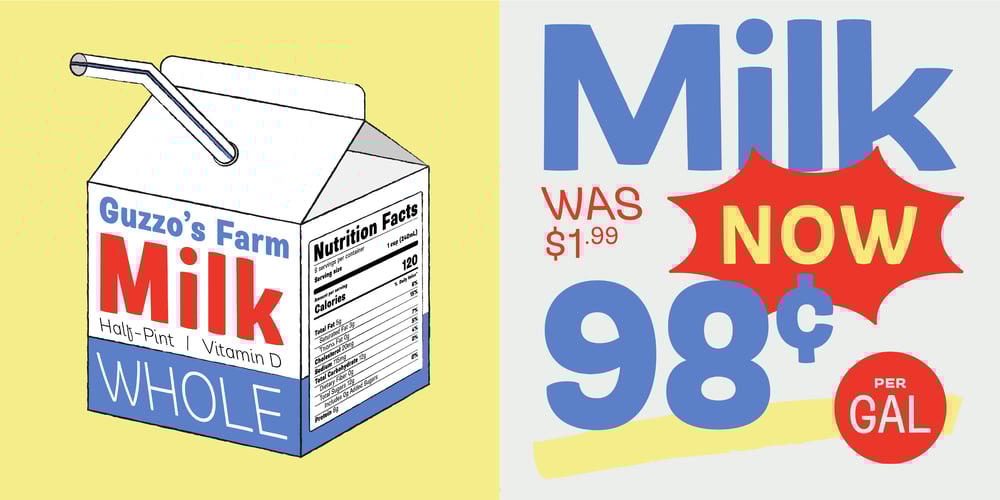
Guzzo Font Family was designed by Jim Ford and published by Monotype. Guzzo contains 24 styles and family package options. A playful caricature of a midcentury grotesque, Guzzo is a fresh addition to the Monotype Library. Somewhat eccentric and full of surprises, its unmistakable quirk can be found on closer inspection, stemming from details proudly borrowed from brush lettering and calligraphy. The wide range of weights and style can take you through any design space, from the condensed weights squeezing in larger headlines or dense blocks of text with the condensed range, to experimenting with small point sizes, labels or packaging with the extended cut. However, Guzzo’s real charm is probably best expressed through its wonderfully playful shapes, its unusual ‘laid-back italics’ feature cursive forms and a backslant. The different stylistic sets allow you to decide what you make of Guzzo, with several sets of alternate glyphs steering it in any direction you want. Guzzo is a happy-go-lucky character, and has a warm, humble and painterly quality that – at a glance – may be unrecognizable as a typeface. It can almost pass for hand-lettering. Guzzo pairs exceptionally well with scripts and slab typefaces, and feels most at home in situ with toys, packaging, menus, broadcasting, cartoons and merchandising! Guzzo encourages you to turn up the silliness and is for designers who want to emulate hand-painted and casual motifs. Taking its name from American artist Jeremy Pinc, aka the painter Guzzo Pinc, the typeface channels the quirky, funny and poignant qualities of his paintings – with wacky characters, loosely painted geometric forms and bright colors. For this mid century, authentic, nostalgic typeface – the story is really what you make of it.